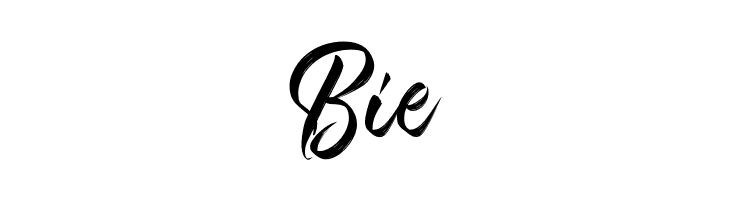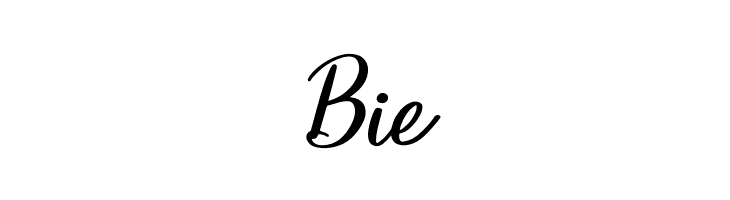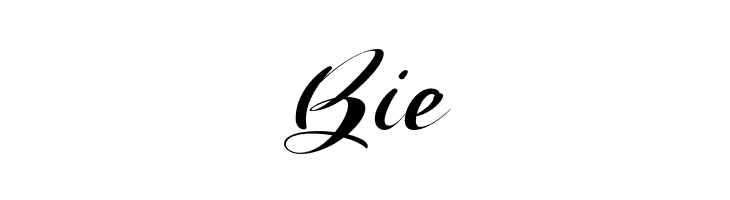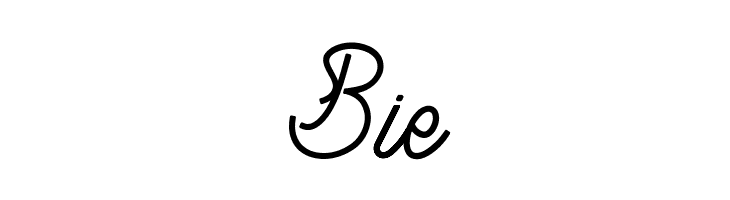
A graceful, cursive script font with elegant loops and swashes.
A dynamic and elegant script font with fluid, cursive strokes.
A dynamic and flowing script font with elegant, cursive strokes.
A bold, handwritten font with a playful and energetic style.
A playful, cursive script font with a handwritten feel.
A lively and elegant script font with fluid, connected letters.
An elegant script font with flowing, interconnected letters and high contrast strokes.
A flowing, elegant script font with high contrast and ornate details.
A fluid and elegant script font with smooth, flowing lines.
A bold, hand-drawn font with a playful and whimsical style.